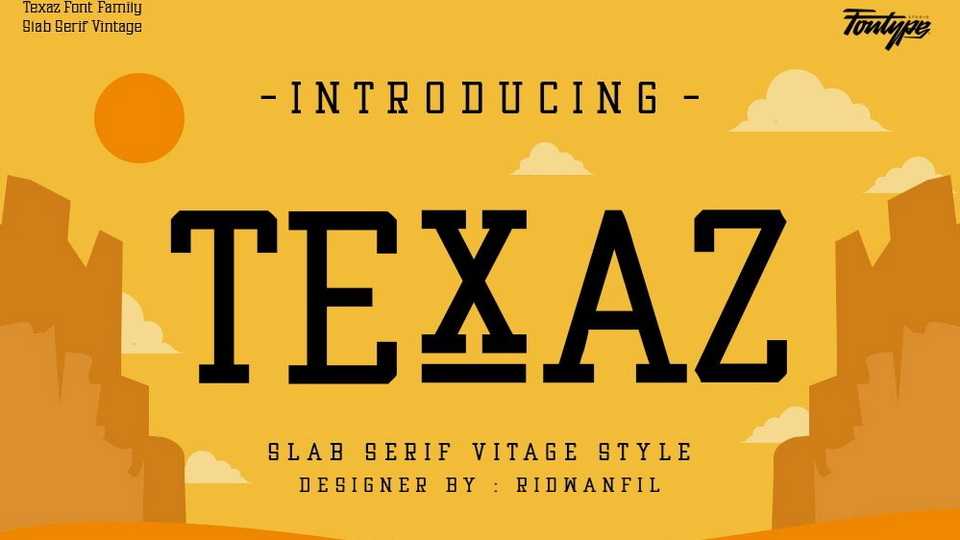
Download Texaz font, a slab serif typeface inspired by a small town named with a legend around the 19th century by cowboys, located in North America. Texas font looks and feels bold, strong, tough, and persistent.
Designer: Ridwan Fadilah